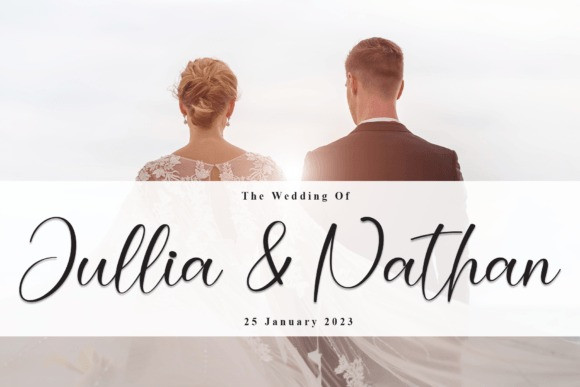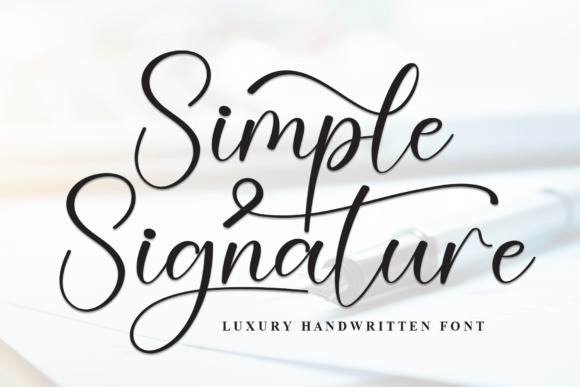
Simple Signature Handwritten Typeface
Simple Signature Handwritten Typeface is a gorgeous and bold handwritten font, crafted to give your headlines and logotype projects a stylish touch. This font reads as strong, confident, and dynamic and can add tons of nostalgic character to your designs.